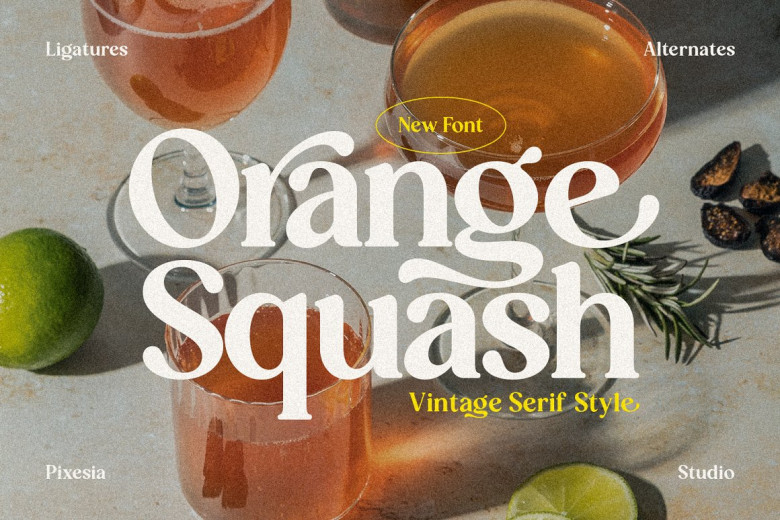
Orange Squash Font
Orange Squash brings nostalgia into your designs with its bold, playful, vintage serif typeface. The chunky serifs make this font ideal for creating eye-catching headlines, logos and other design elements with its retro appearance making this font versatile enough for many projects.
Orange Squash’s extensive character set and support for multiple languages will bring personality to any design project, while inspiring creativity in you and others. Don’t let its playful form restrict you! Orange Squash font can bring inspiration.
Orange Squash Serif Font